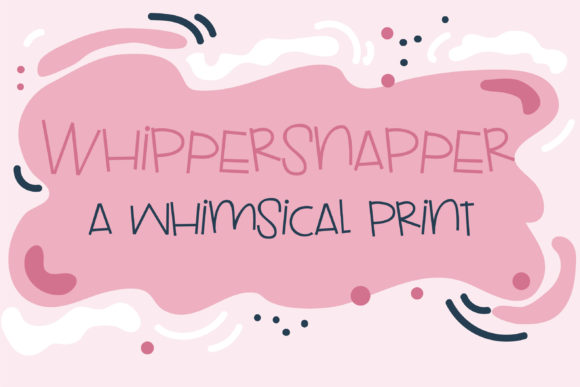
Journey into the realm of Whippersnapper Font, a sans serif masterpiece crafted by Illustration Ink, and discover a font family that exudes boundless joy and youthful exuberance. Whippersnapper Font is not merely a collection of characters; it's a gateway to a world where imagination runs wild and creativity knows no bounds.
With its playful curves and energetic strokes, Whippersnapper Font breathes life into any text, transforming ordinary words into vibrant expressions of joy. Its whimsical nature makes it a perfect choice for children's books, playful branding, and any project seeking a touch of lightheartedness.
Dive into the depths of Whippersnapper Font's character set and uncover a treasure trove of unique glyphs, each imbued with a distinct personality. From uppercase letters that dance with glee to lowercase letters that skip and twirl, Whippersnapper Font is a visual symphony that captivates the eyes and ignites the imagination.
Experience the magic of Whippersnapper Font in action and witness how effortlessly it weaves its enchanting spell, transforming dull text into captivating tales, mundane marketing messages into irresistible calls to action, and ordinary social media posts into vibrant expressions of creativity.
Whippersnapper Font is more than just a font; it's an invitation to unleash your inner child, to embrace the joy of playfulness, and to let your imagination soar. Let Whippersnapper Font be your artistic paintbrush, painting vibrant strokes of creativity across your digital canvas.